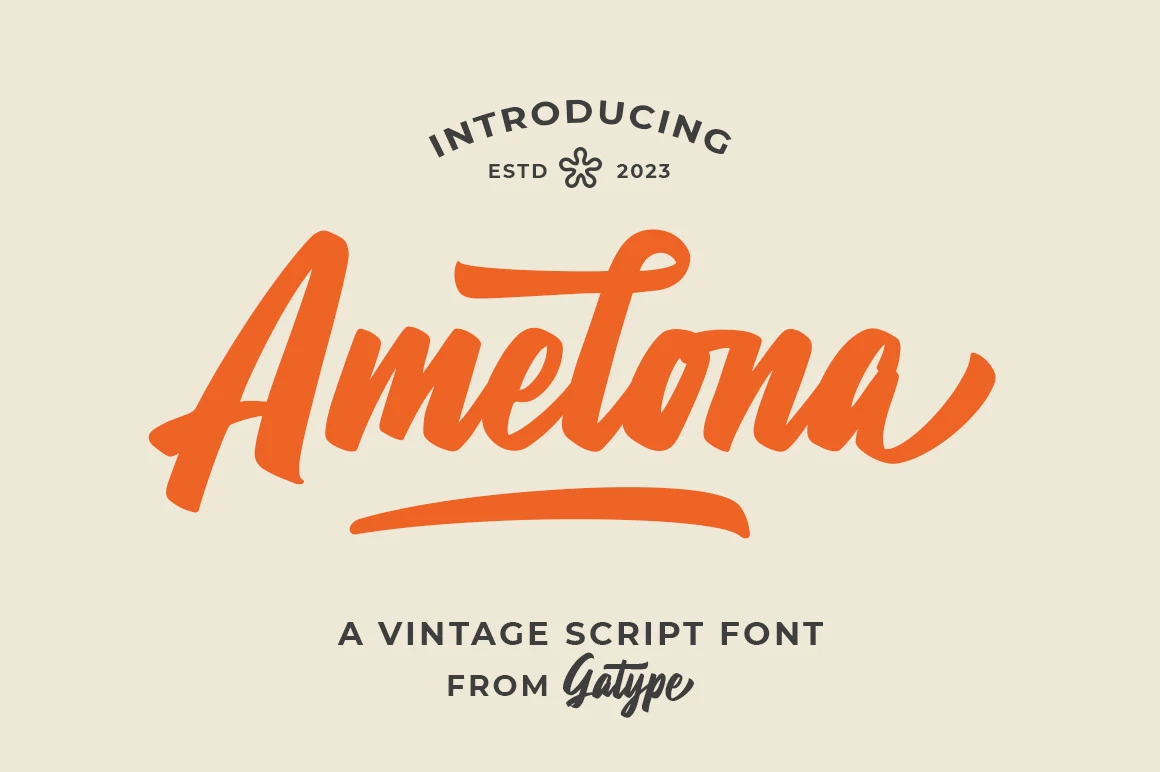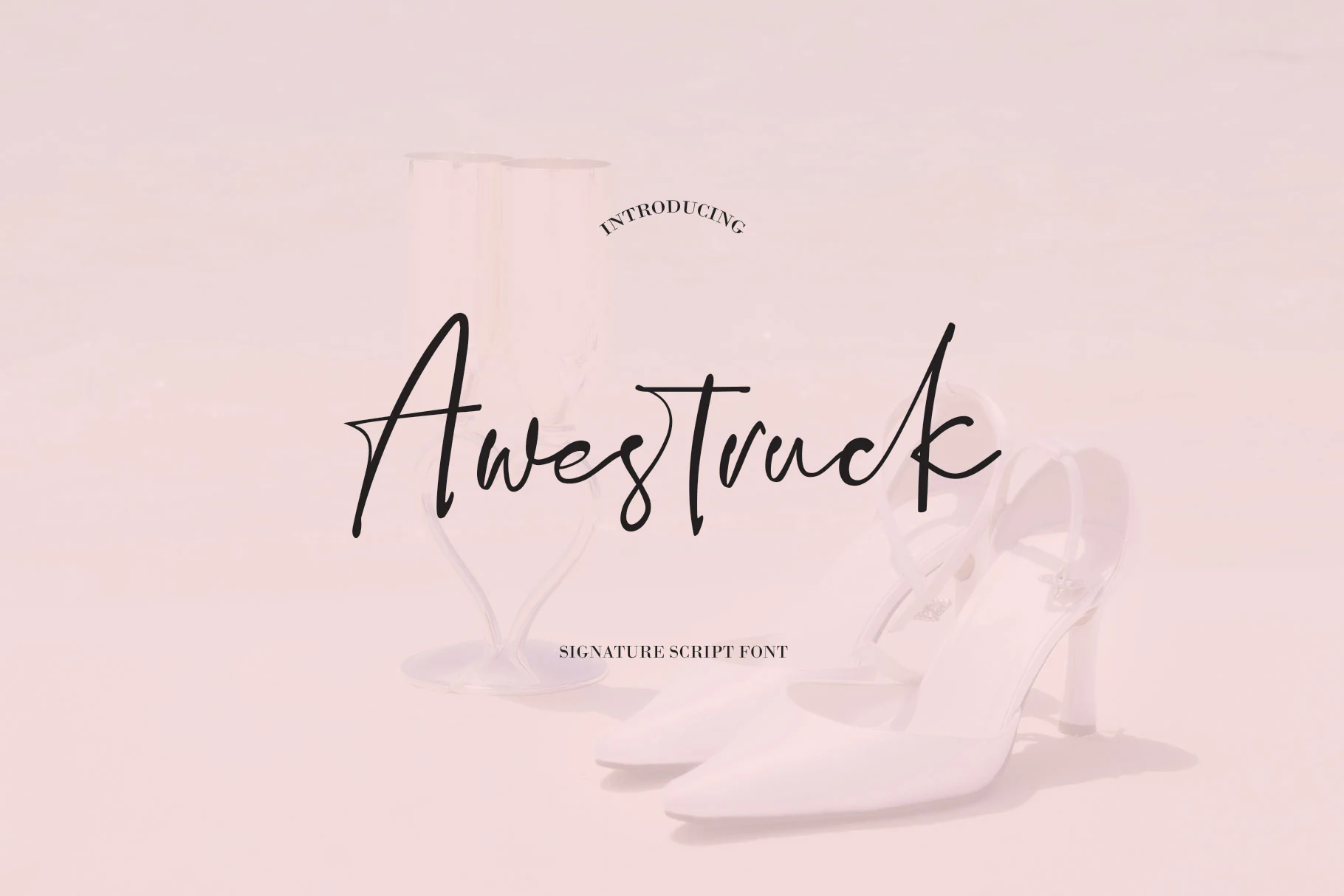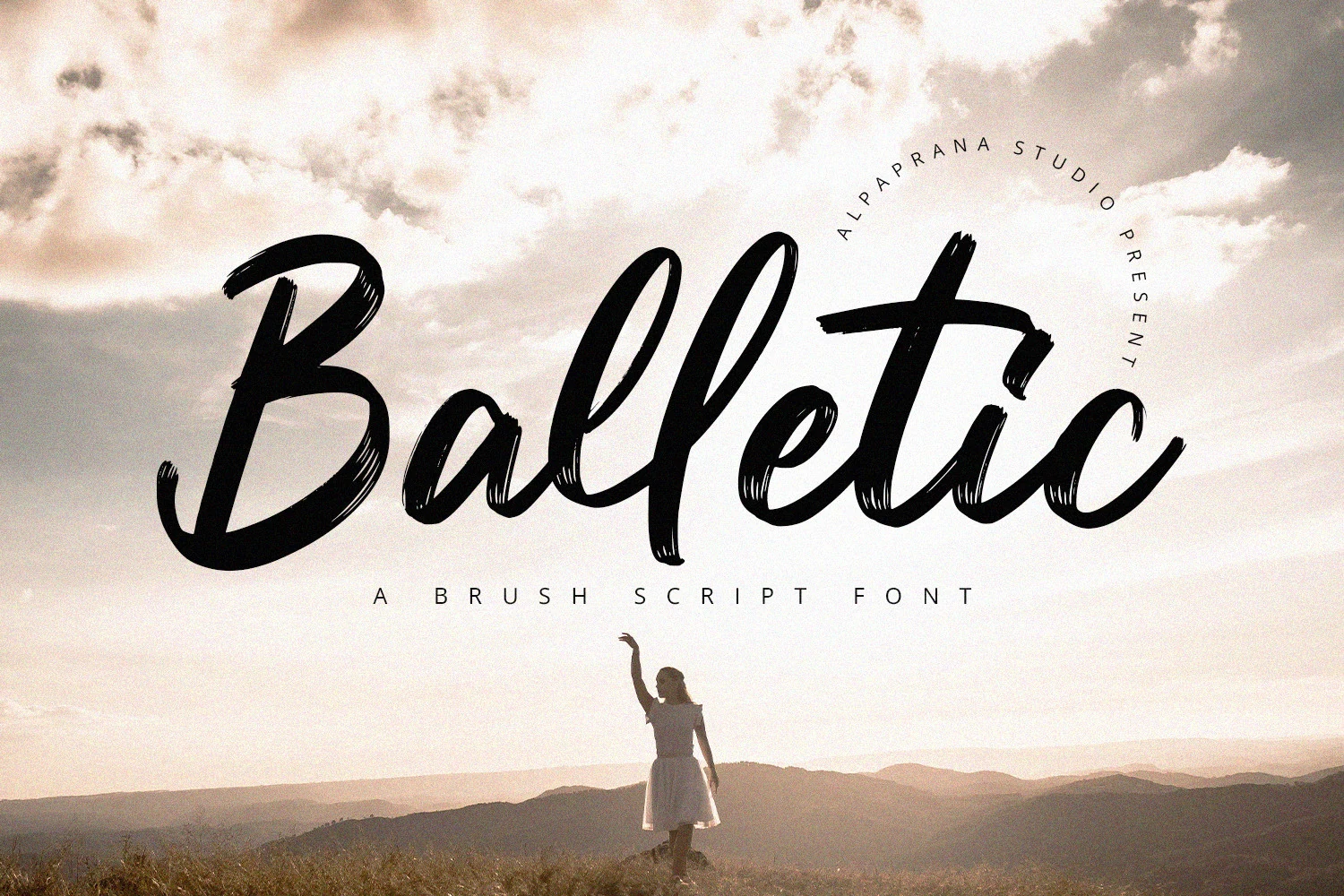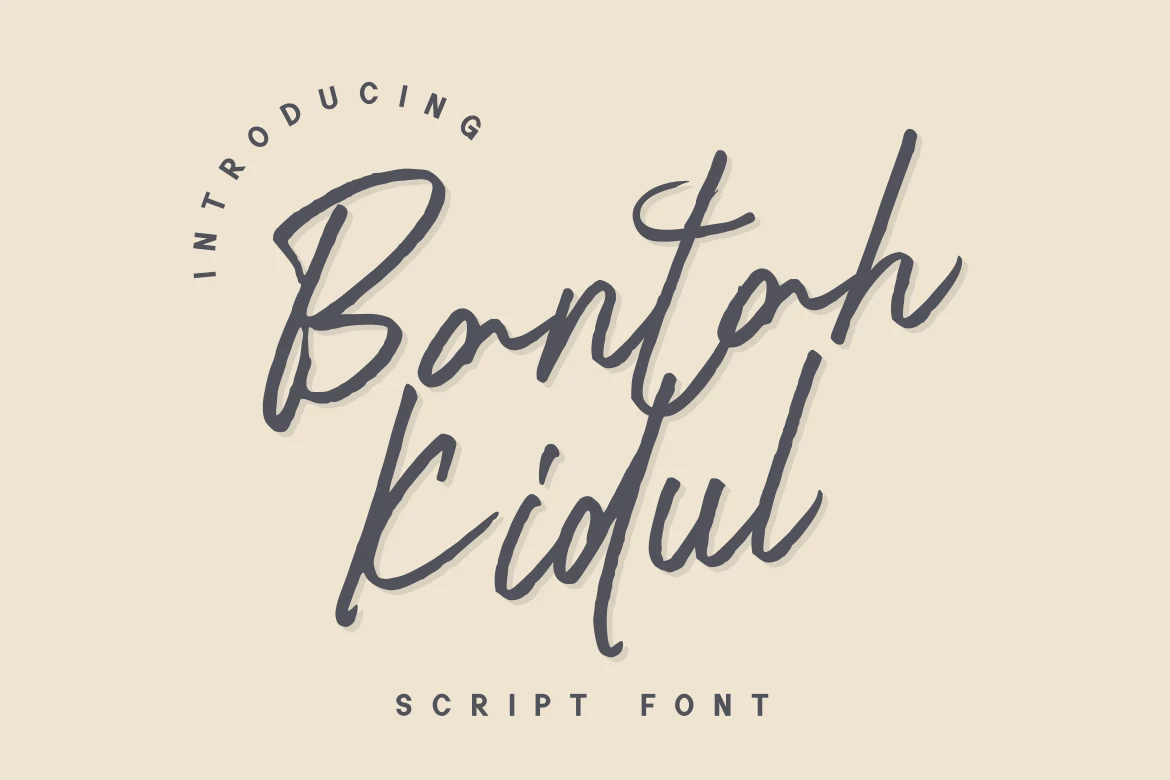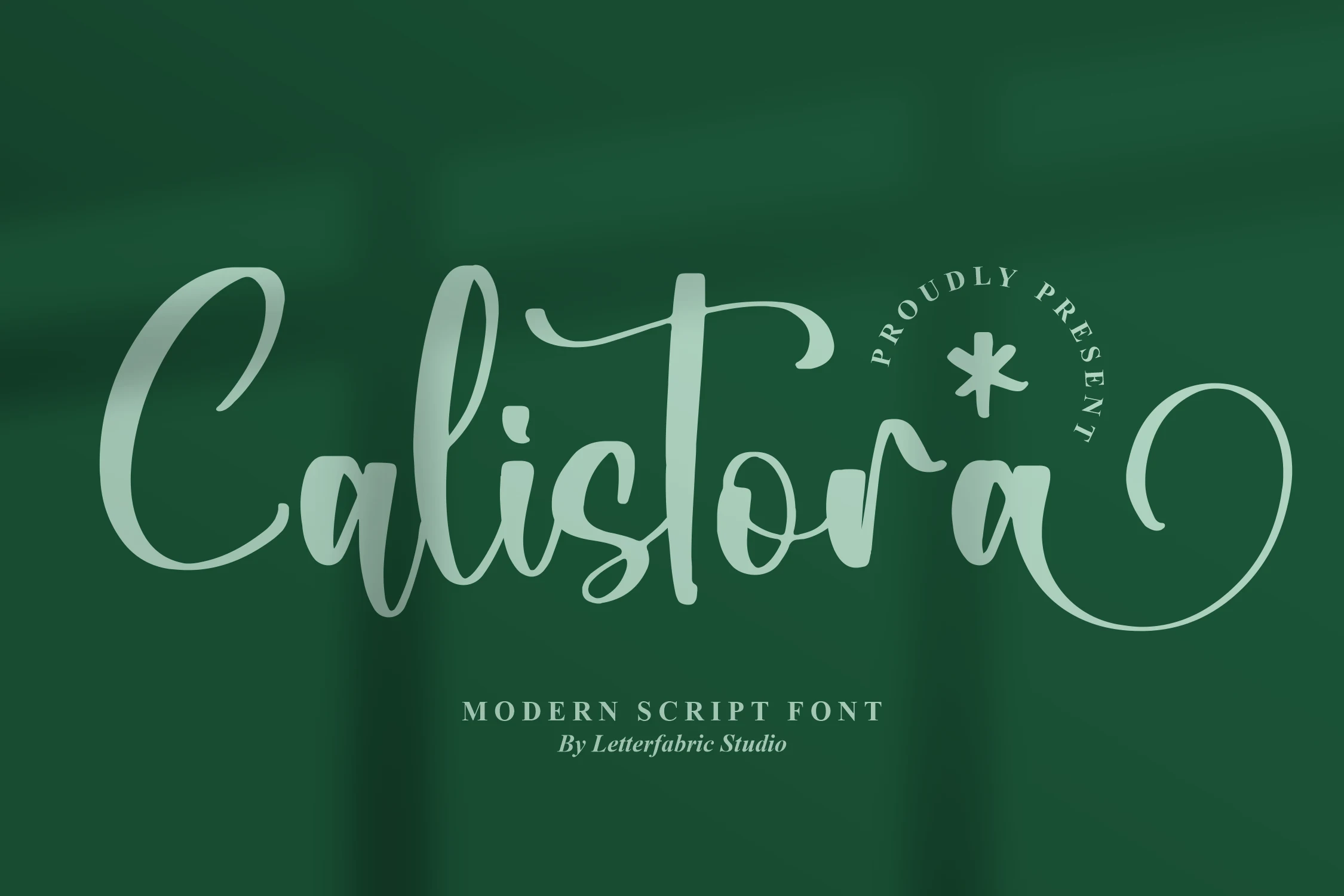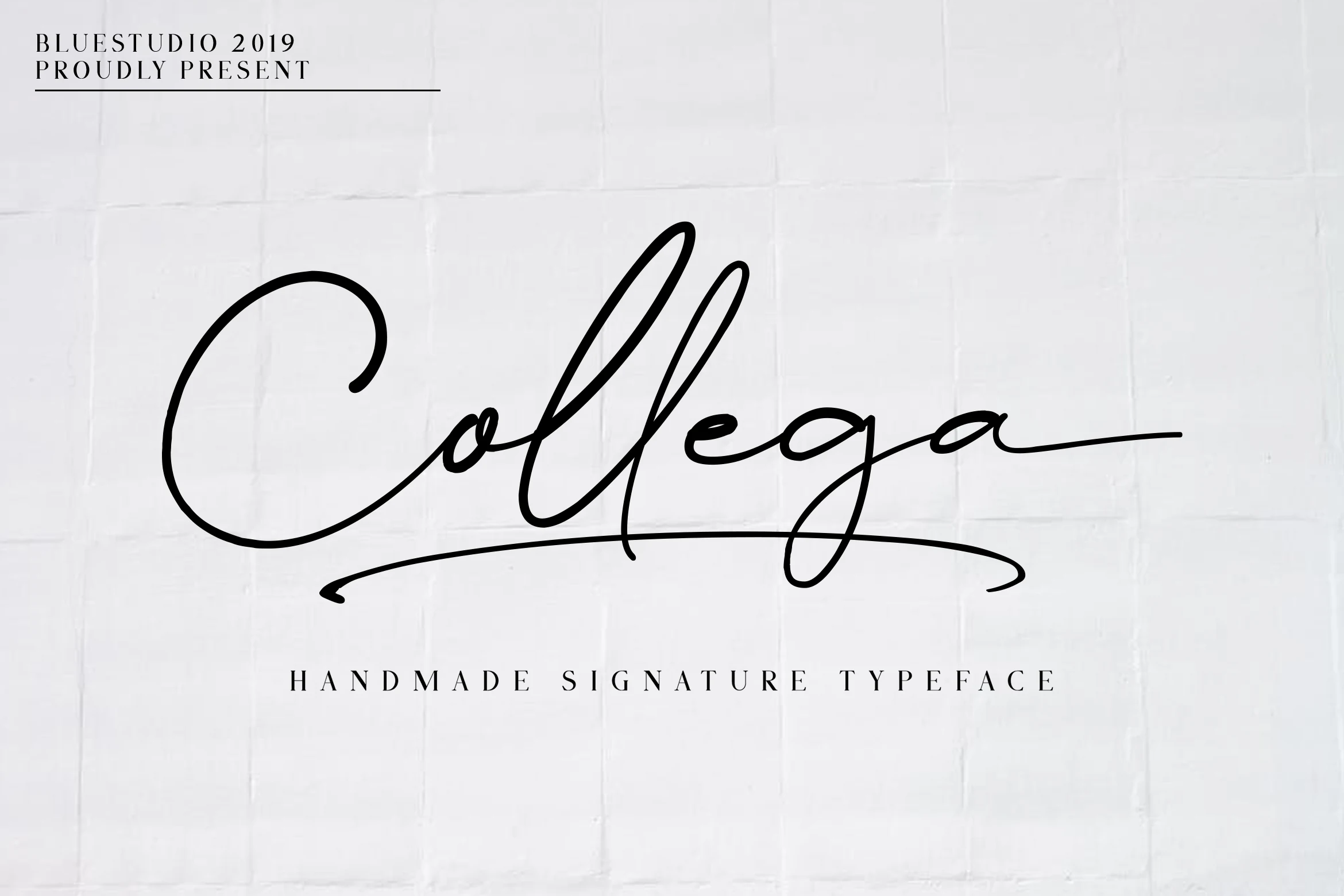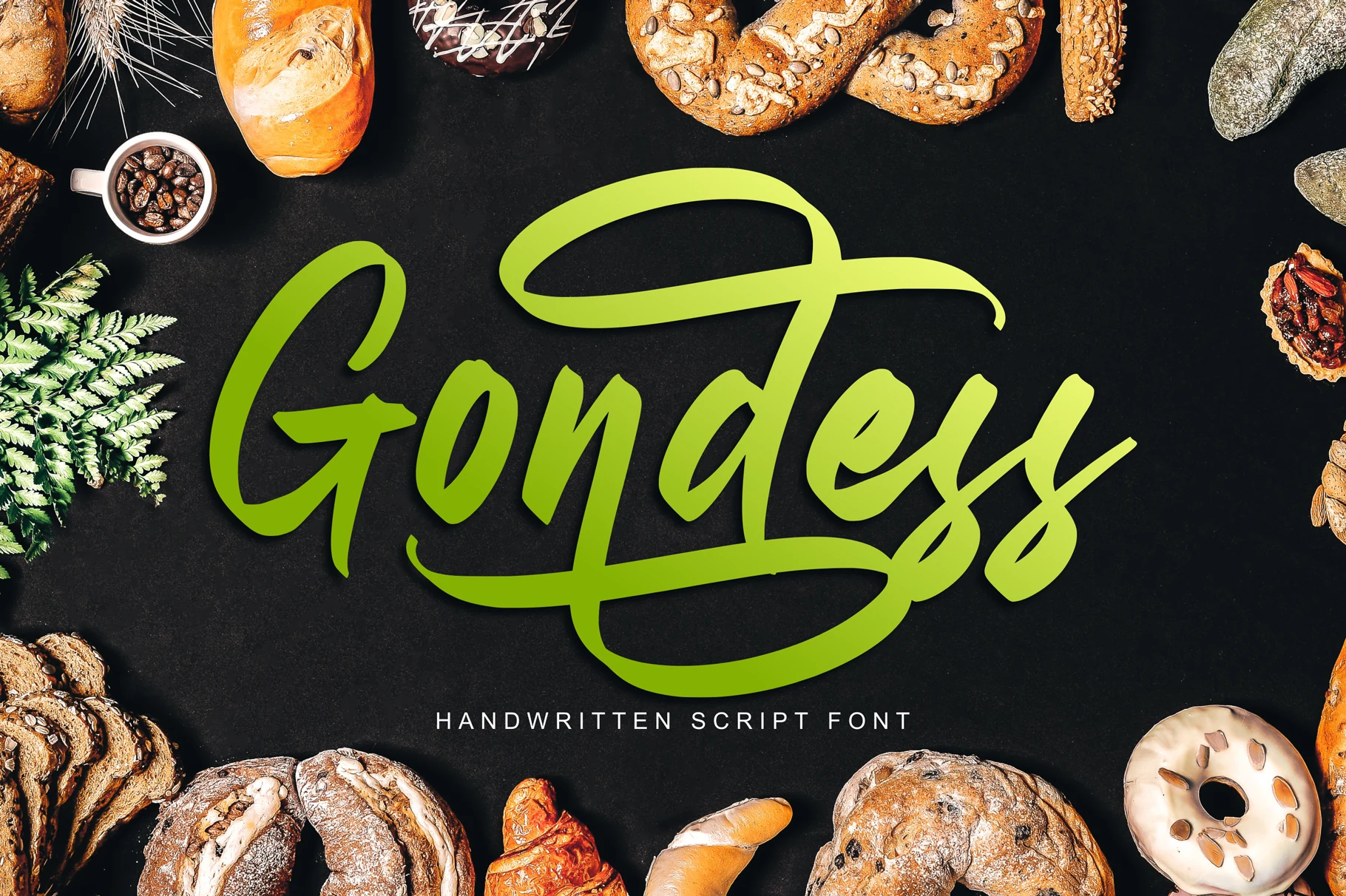
17 Best Cool Script Fonts in 2026
This collection moves from textured marker lettering and brush-built forms to polished signatures, flowing calligraphy, and dimensional retro display scripts. These Cool Script Fonts can shape logos, posters, invitations, social graphics, packaging, and short headlines, with readability and scale varying widely across the group.
Cool Script Fonts: Connected and Flowing Styles
These Cool Script Fonts use connected or partly connected handwriting, but their tones range from marker-textured and irregular to restrained monoline forms, setting them apart from heavier brush and swash-led styles.
Saucier Marker Font
Saucier Marker Font features an upright connected script with textured marker strokes and irregular terminal endings.
Saucier Marker Font brings connected letters, marker texture, slight stroke variation, and irregular terminals together in a casual flow. Its moderately legible forms suit large headings, short social graphics, posters, and brief display wording better than extended text.
Rhythm Font
Rhythm Font features bold connected cursive lettering with high stroke contrast, rounded terminals, and a pronounced rightward slant.
Rhythm Font controls its energetic slant with a stable baseline, rounded terminals, and a clear thick-to-thin rhythm. It suits display text, short phrases, and creative projects such as cards, while connecting strokes and contrast become more difficult to read when reduced.
Edification Font
Edification Font in a fluid handwritten script with connected letterforms, monolinear strokes, and a slight vertical inclination.
Edification Font takes a more restrained approach through monoline construction, a stable baseline, and largely connected forms with a slight inclination. Its balanced medium weight supports logos, branding, social media graphics, and display text, though informal shapes can blur when significantly reduced.
Bantah Kidul Font
Bantah Kidul Font featuring handwritten appearance and monolinear stroke weight
Bantah Kidul Font interrupts its connected construction with occasional gaps and asymmetrical character shapes, preserving a spontaneous handwriting impression. The irregularity gives headlines, signage, display text, and short phrases individual character, but recognition can weaken considerably at very small sizes.
Brush-Led Statement Scripts
Dense, textured strokes define this group, with brush weight, contrast, shadows, and underlines doing much of the visual work. They make stronger statements than the lighter signature scripts.
Kabeh Black Font
Kabeh Black Font shown as a heavy connected script with high stroke contrast, rightward slant, and calligraphic swashes.
For logos, branding, display text, and wedding designs, Kabeh Black Font offers dense connected lettering with high contrast, a pronounced slant, and calligraphic tails. Its intricate joins create a carefully shaped mark, but they demand large sizing and brief wording rather than continuous reading.
Balletic Font
Balletic Font featuring expressive connected lettering, textured brush strokes, and a slanted script appearance
Balletic Font uses visible brush texture, high contrast, a slanted appearance, and an irregular baseline to suggest physically written lettering. Its connected forms make a forceful impression in large logos, branding, posters, and display text, but the surface texture is demanding at small sizes.
Estudiar Font
Estudiar Font in bold connected script lettering with a strong rightward slant, high contrast, and a decorative final-letter swash.
Estudiar Font combines connected, right-leaning brush lettering with high contrast, a layered drop shadow, and a distinctive under-swash on the final letter. That built-in finishing gesture suits logos, headlines, display text, and social media graphics, provided the composition leaves room for its decorative ending.
Amelona Font
Amelona Font is a bold connected script with heavy brush-like strokes, a rightward slant, and a sweeping underline.
Amelona Font drives its connected lettering with heavy brush-like strokes, high contrast, a rightward slant, and a pronounced underline extension. The finishing gesture holds together in logos, posters, headlines, and retro designs, while the thick forms are too forceful for body copy.
Signature and Swash Scripts
Signature and swash designs prioritize slant, loops, tails, and decorative endings. Some remain connected while others separate letters, giving branding and invitation work more customization than casual handwriting styles.
Belmonth Font
Belmonth Font featuring connected cursive letterforms, a pronounced rightward slant, and sweeping decorative swashes.
Belmonth Font leans sharply right, joining flowing letterforms with long swashes and tails. The polished, personal construction can give logos, branding, and short headlines an editorial look, but its flourishes need generous sizing and quickly become unsuitable for paragraphs.
How to Choose the Right Font
Choose by construction before mood: marker and monoline options generally offer clearer shapes, while dense brush strokes, tight joins, shadows, and flourishes need more space. Use lighter or separated signatures when individual letters matter, reserve heavy dimensional scripts for display scale, and test every selection at its final size before committing to branding or headlines. For Cool Script Fonts, readability should guide the final decision as much as tone.